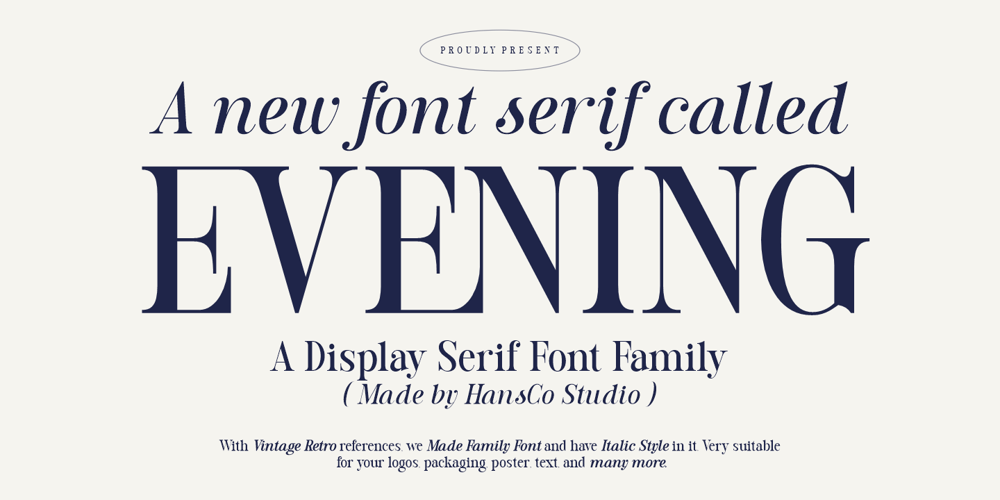
Evening Serif
Evening Serif font
Evening Serif Font Family was designed by Burhan Afif and published by HansCo. Evening Serif contains 6 styles and family package options. Introducing our latest serif font called Evening. This serif font is beautifully crafted, blending classic charm with contemporary style. It has 6 different styles ranging from Light, Regular and Bold as well as an Italic version. All of which allow you to explore and create a wide variety of projects. Whether you are creating a sophisticated editorial layout, a striking brand identity, or an eye-catching website, this font will evoke a sense of classic beauty while maintaining a fresh and modern feel.Features : Uppercase & Lowercase Number & Punctuation Multilingual Supports Ligature for some characters 6 Font Style We highly recommend using a program that supports OpenType features and Glyphs panels like many of Adobe apps and Corel Draw, so you can see and access all Glyph variations.Thank You